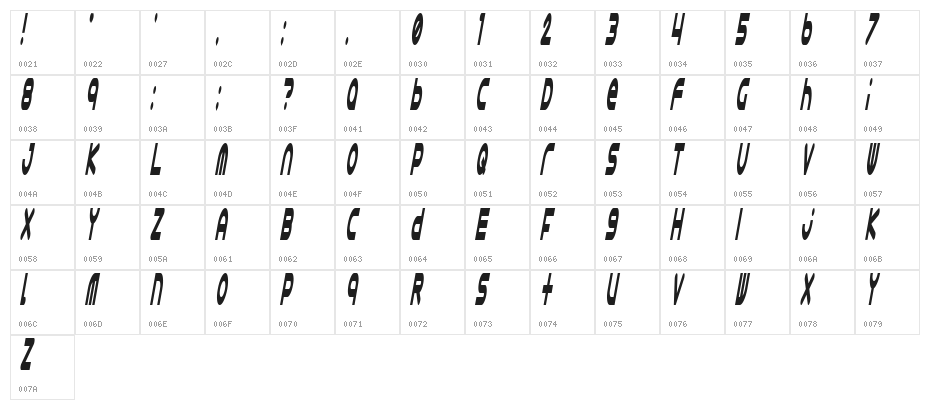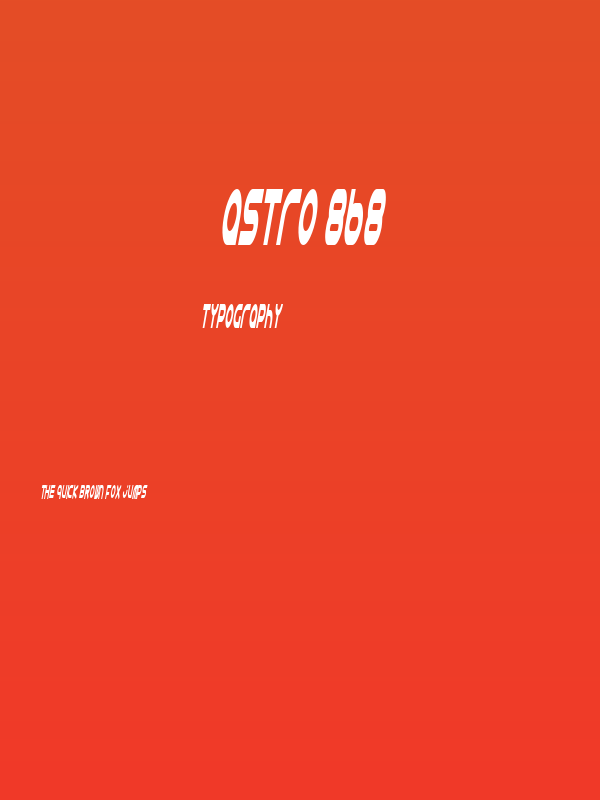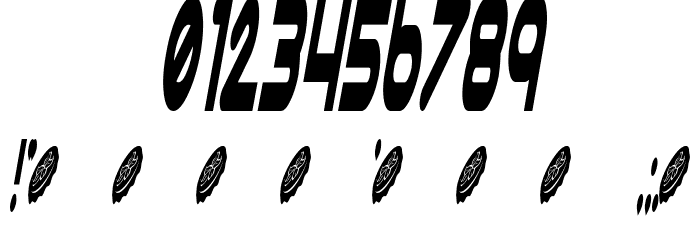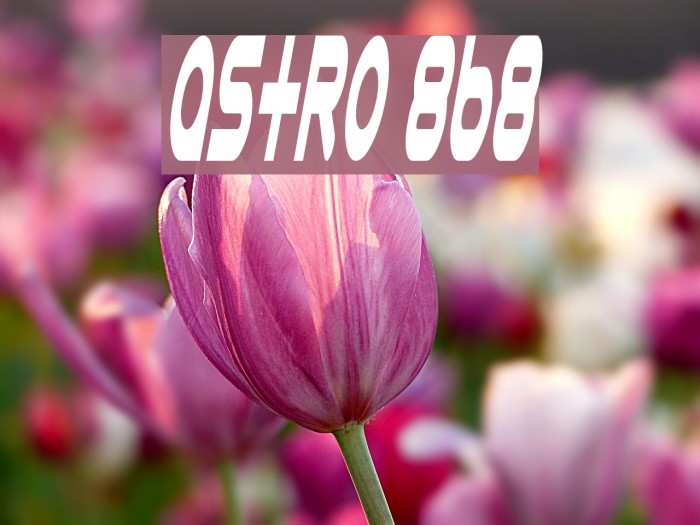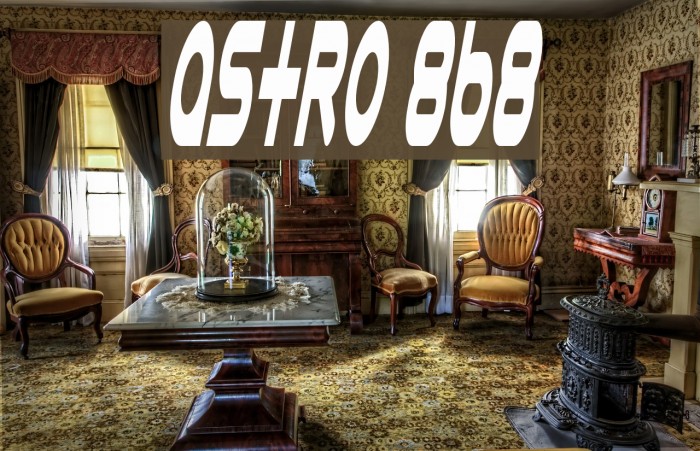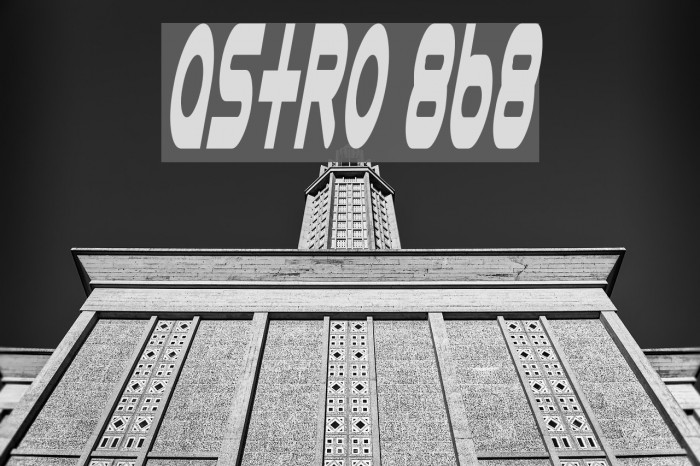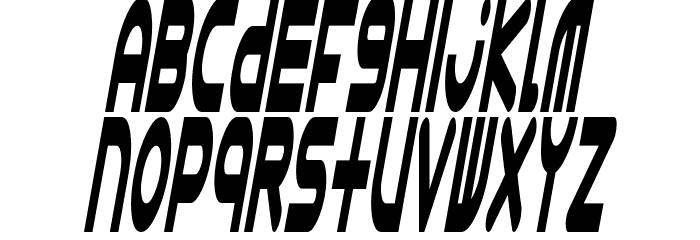
Astro 868 Font
Astro 868 Description
This font features a futuristic and dynamic design, characterized by its bold and italicized letterforms. The characters are slightly condensed, giving a sleek and modern appearance. The strokes are consistent in thickness, providing a uniform look across all characters. The font includes both uppercase and lowercase letters, numerals, and a selection of special characters. Its distinct style makes it ideal for projects that require a strong visual impact, such as technology-related branding, sci-fi themed designs, or modern advertising campaigns.
| Proposed Projects | Ideal for technology branding, sci-fi designs, modern advertising, and dynamic posters. |